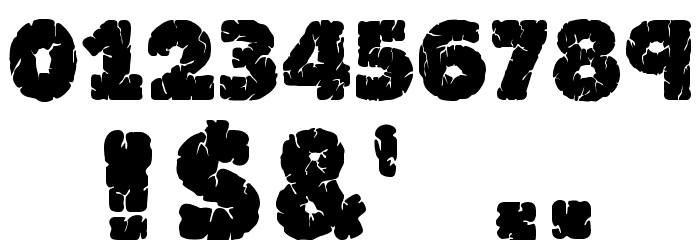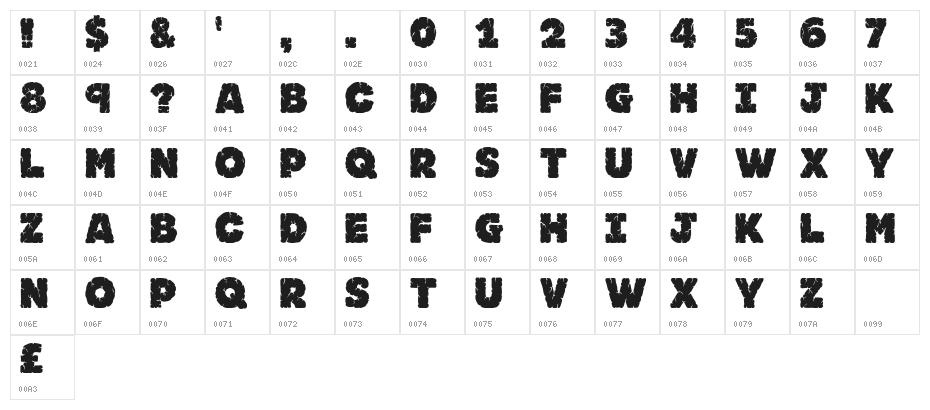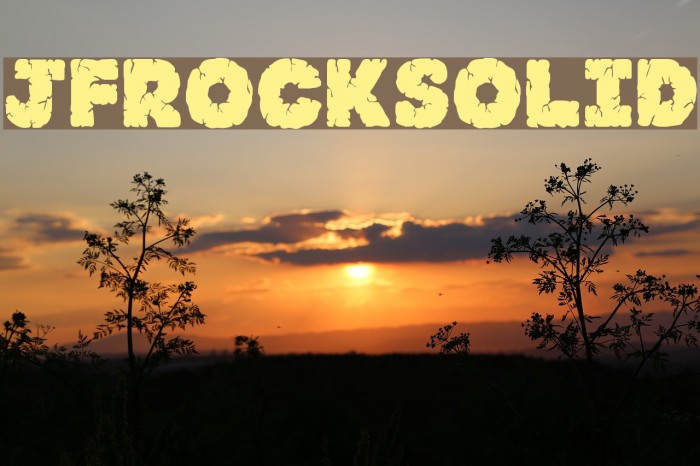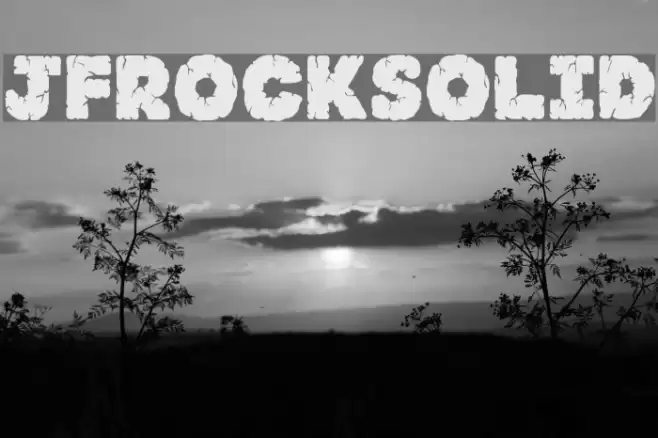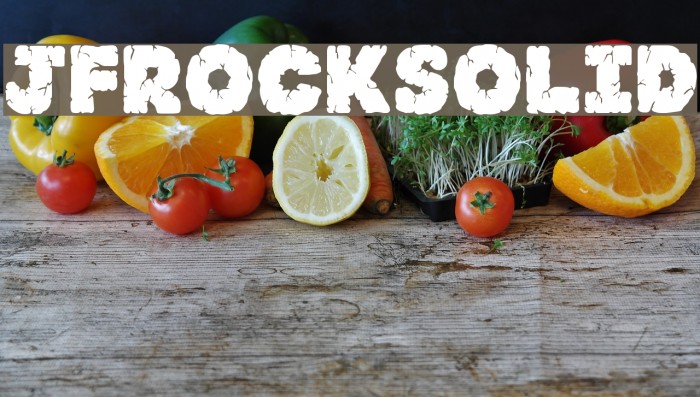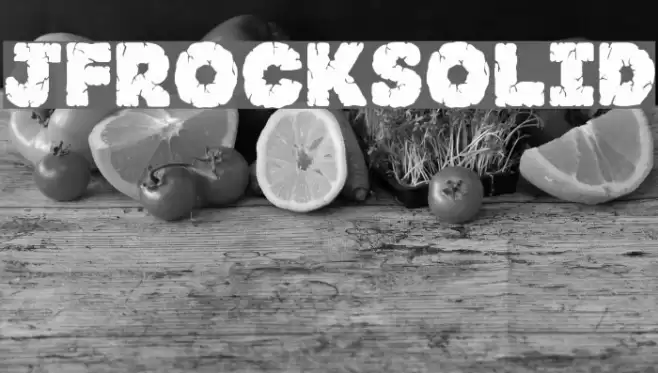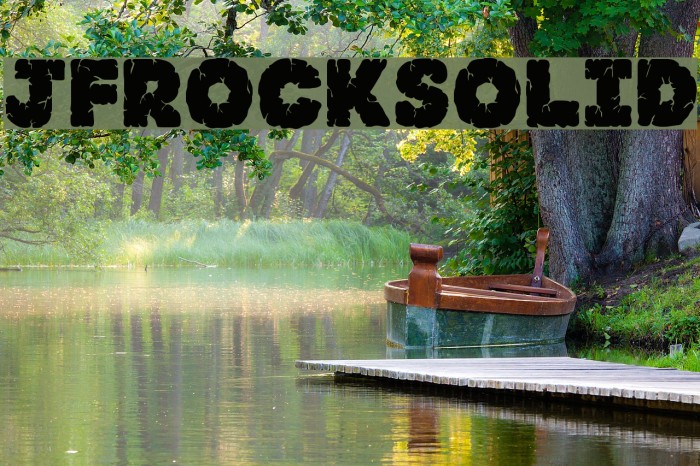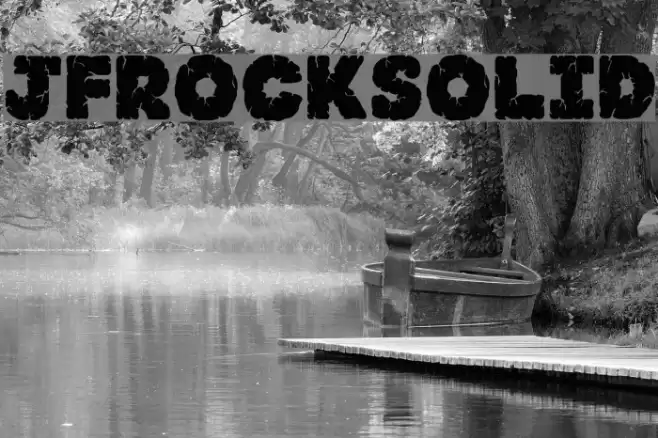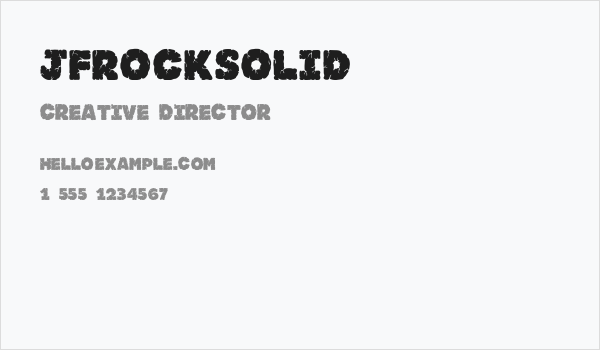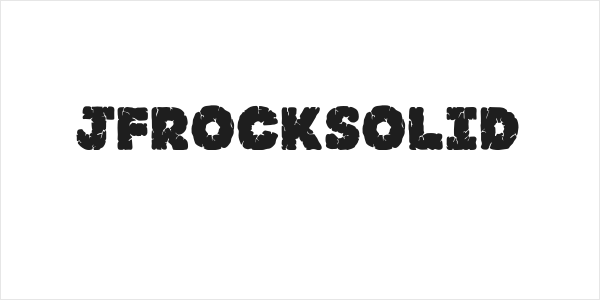
JFRockSolid Font
JFRockSolid Description
This font features a rugged, textured appearance that mimics the look of cracked or weathered stone. Each character is bold and impactful, with irregular edges that give it a raw, natural feel. The uppercase and lowercase letters maintain a consistent style, ensuring readability while adding a unique visual interest. The numbers and special characters follow the same design, making them suitable for various creative applications. This font's distinctive style makes it ideal for projects that require a strong, eye-catching typeface.
| Proposed Projects | Ideal for posters, logos, video game graphics, and any design needing a strong, textured typeface. |